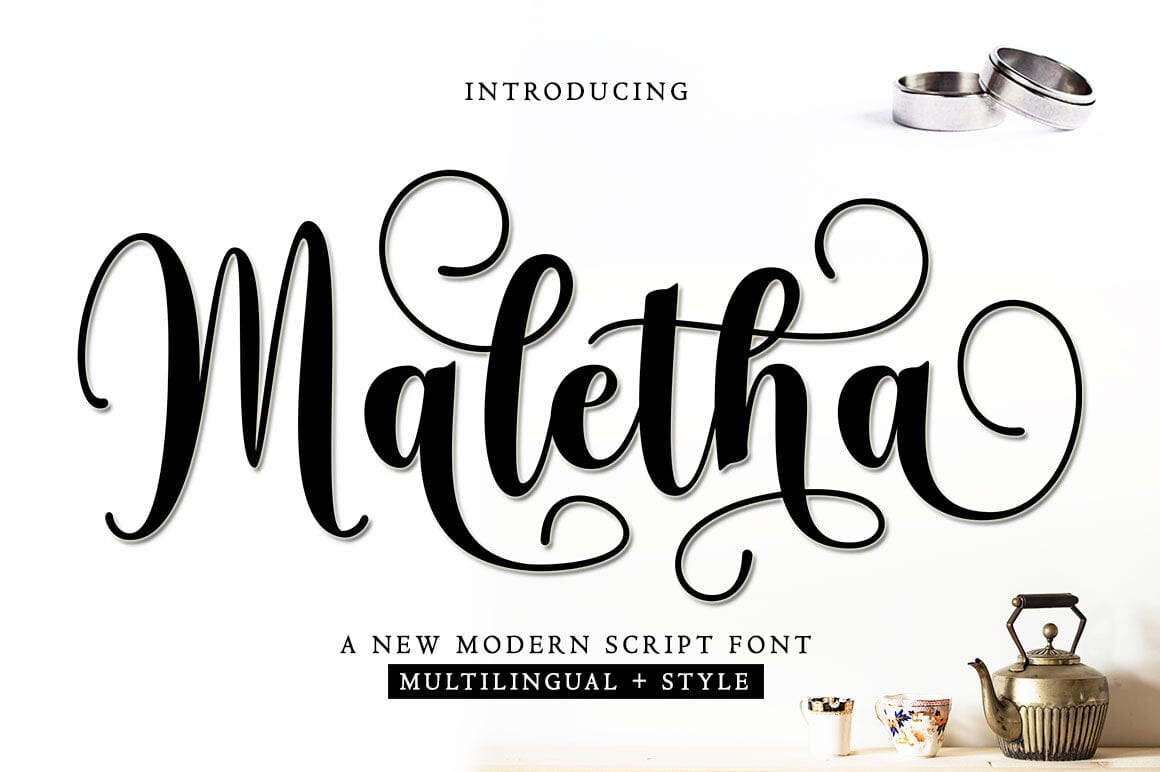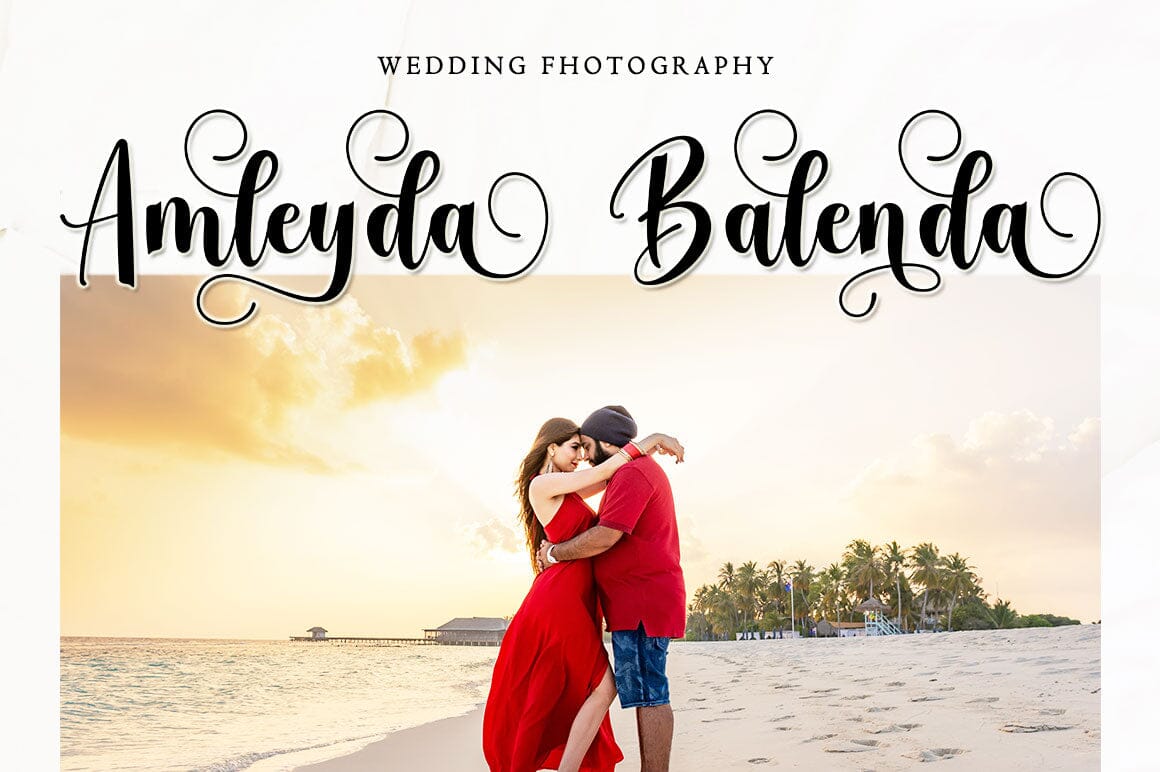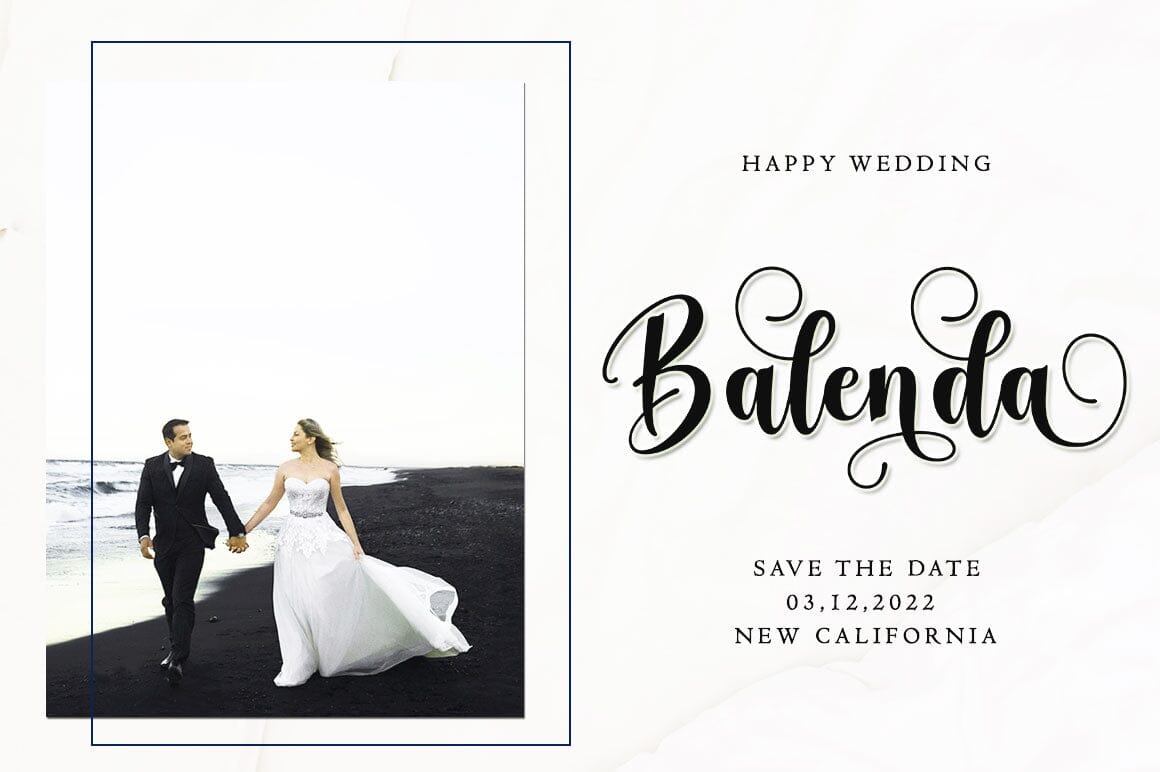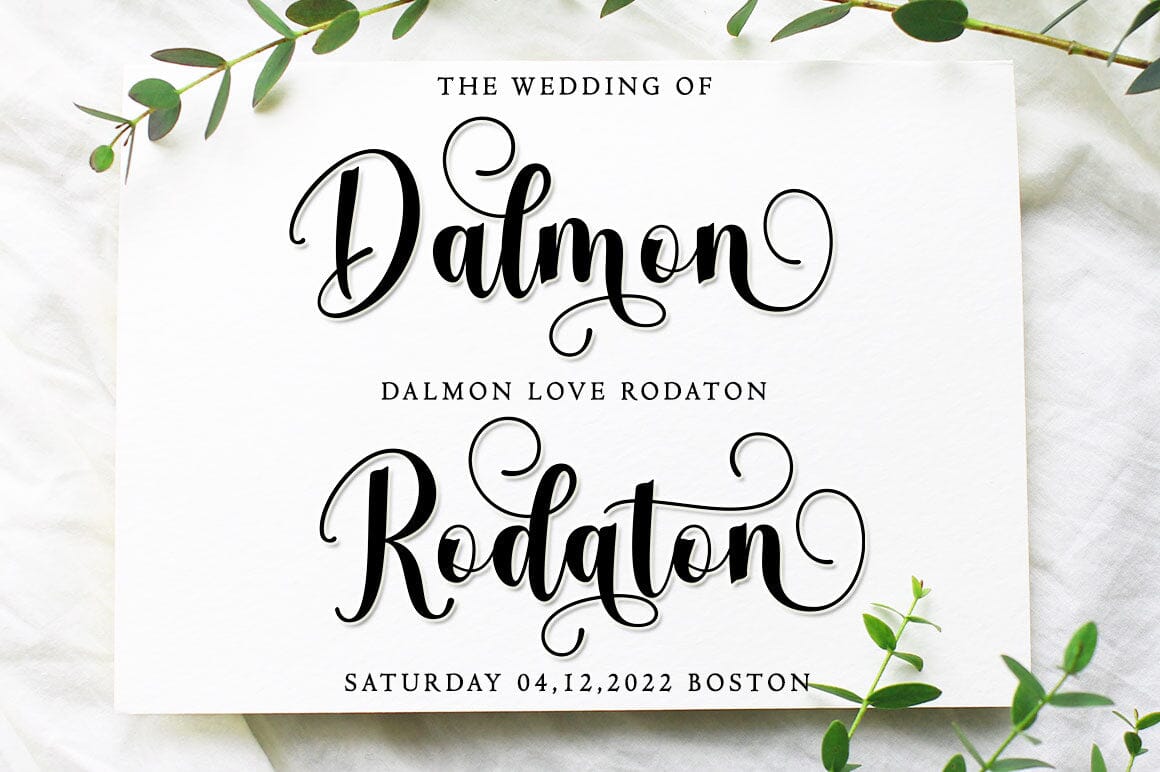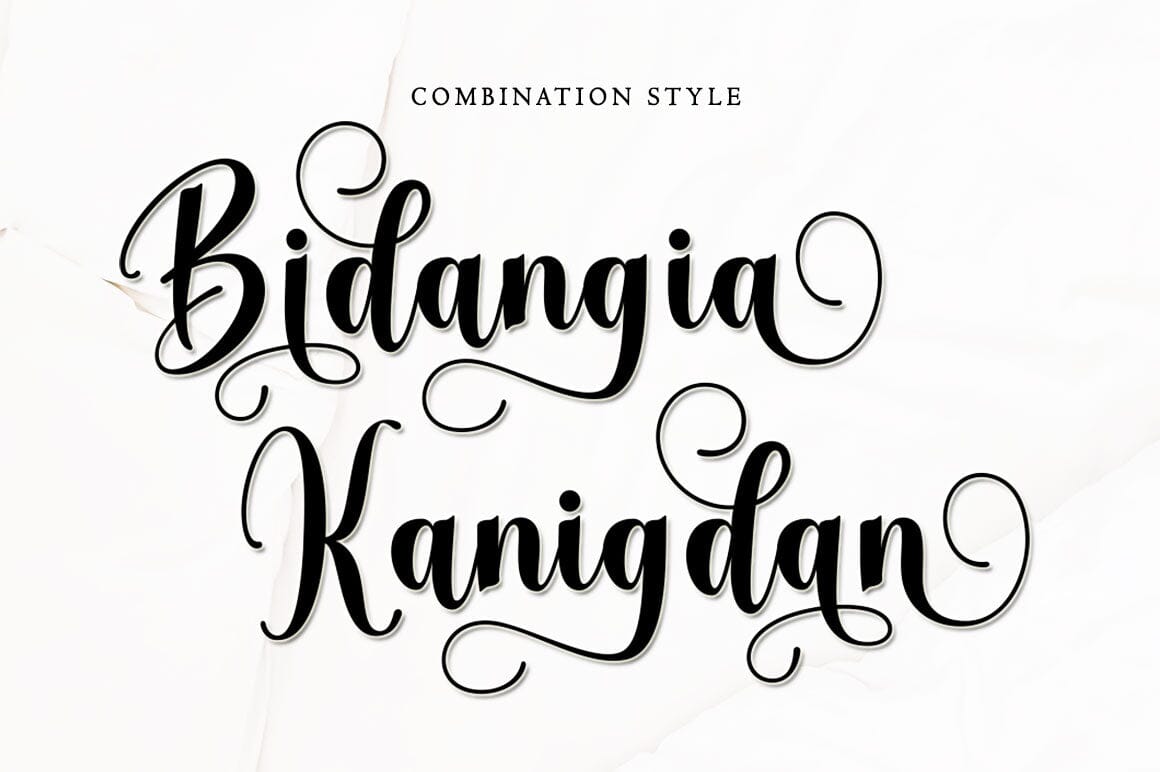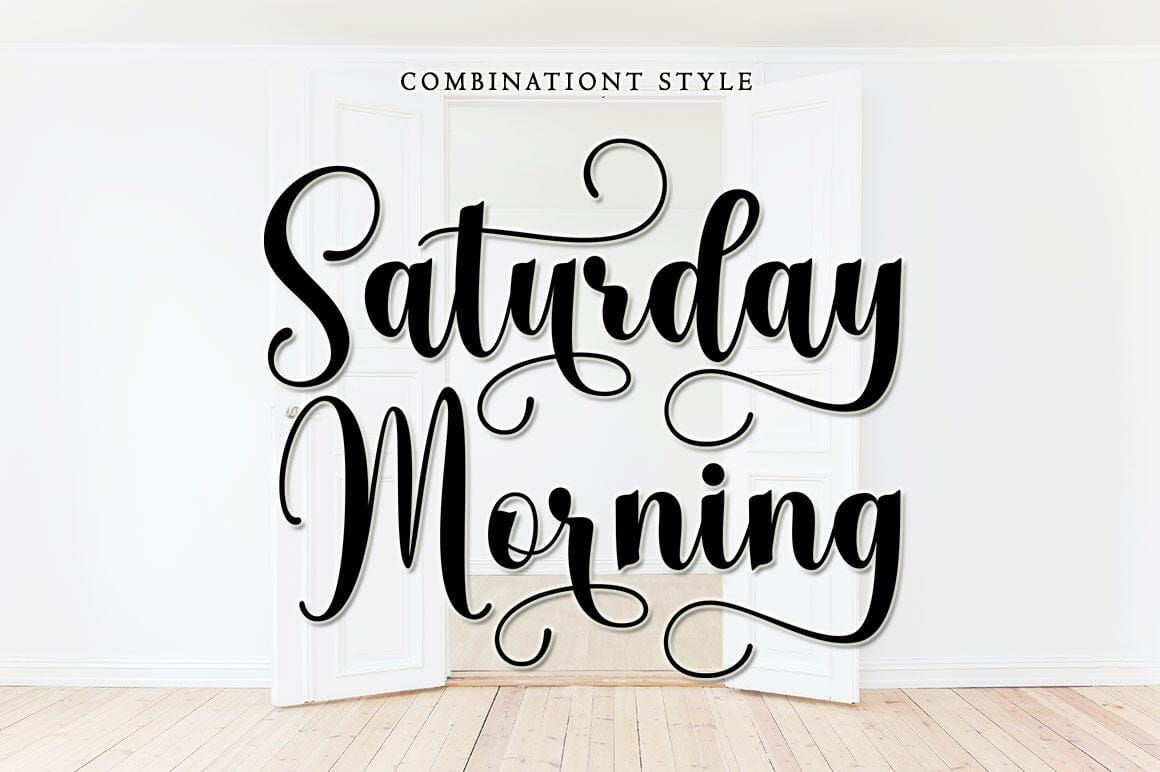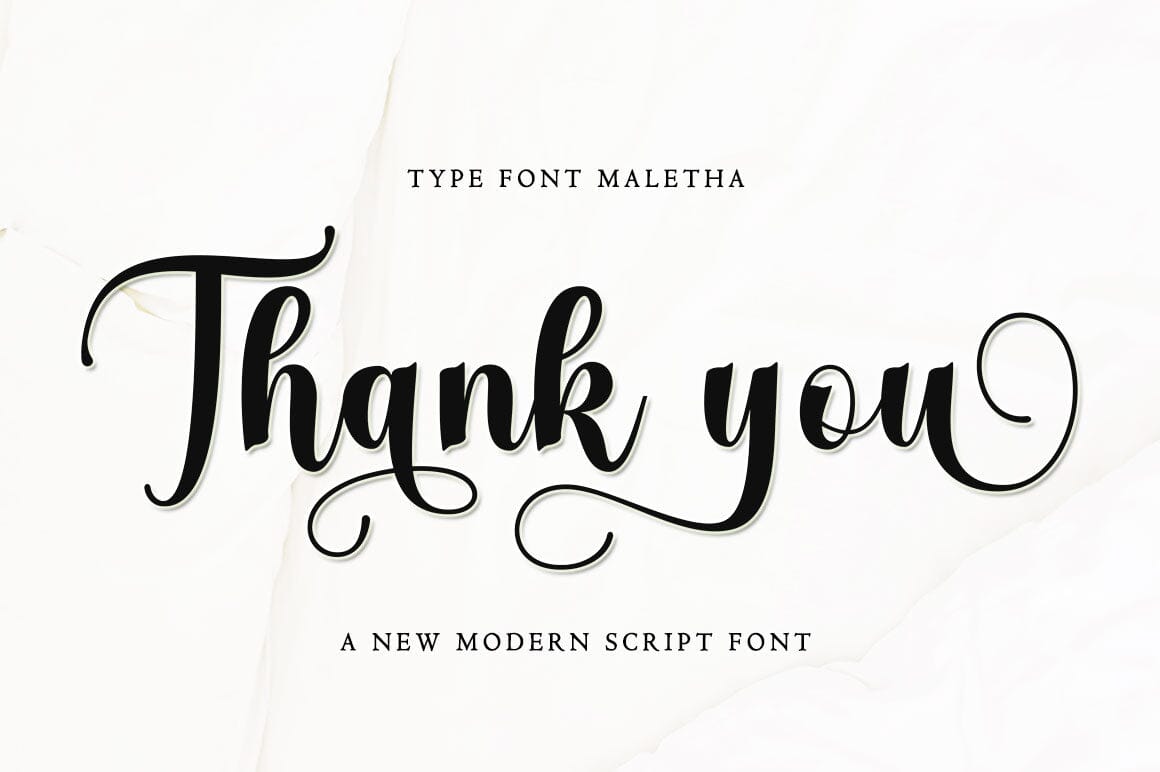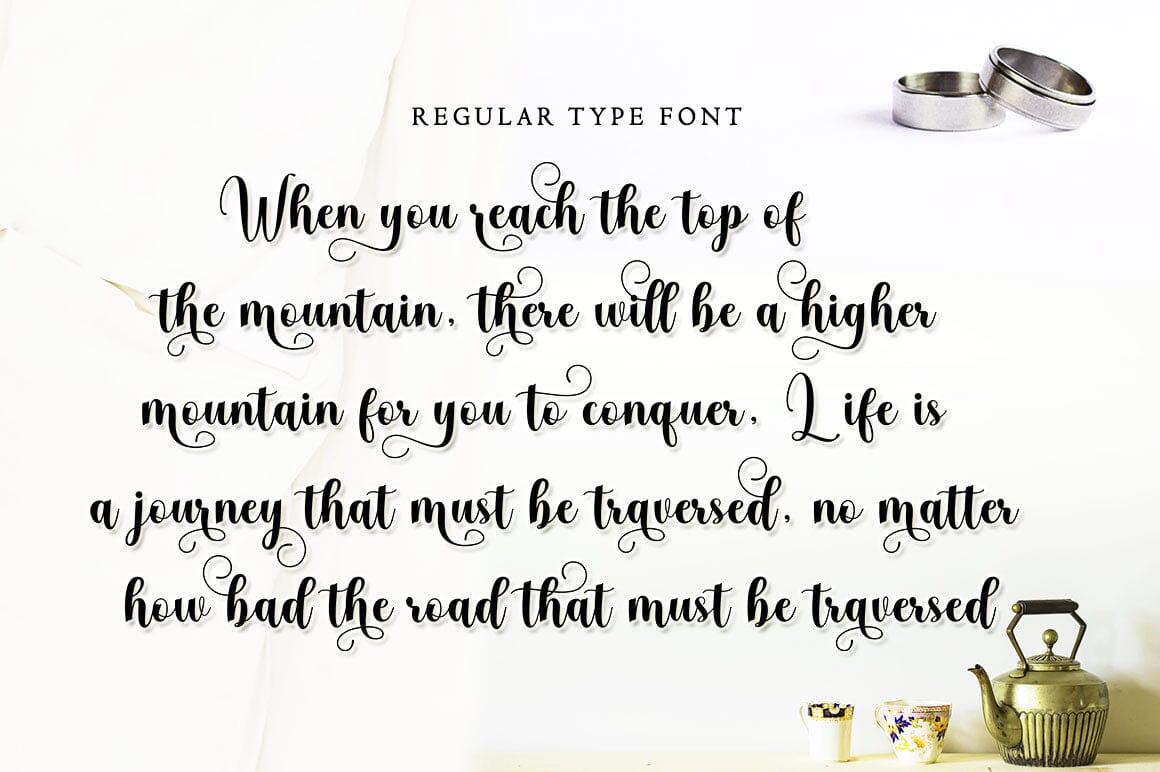
Maletha
About Maletha
Maletha is a very cute, elegant and unique handwritten font. Expertly designed to become a true favorite, this font has the potential to take your creative ideas to the highest level! This font is PUA coded which means you can easily access all the glyphs and strokes! Maletha is attractive because it is sleek, clean, feminine, sensual, glamorous, simple and highly readable, thanks to its many luxurious letter joints. I also offer a number of viable alternative styles for all letters. Classic style is very suitable to be applied in various formal forms such as invitations, labels, restaurant menus, logos, fashion, make up, stationery, novels, magazines, books, greeting cards/weddings, packaging, labels or all kinds of advertisements. for your purposes. . . . . . . Contains full set: -Uppercase -Lowercase -Alternative – Ligature – Punctuation -Number – Multilingual support. Need help or have questions let me know. I’m happy to help. Thank you & Congratulations on the Design.